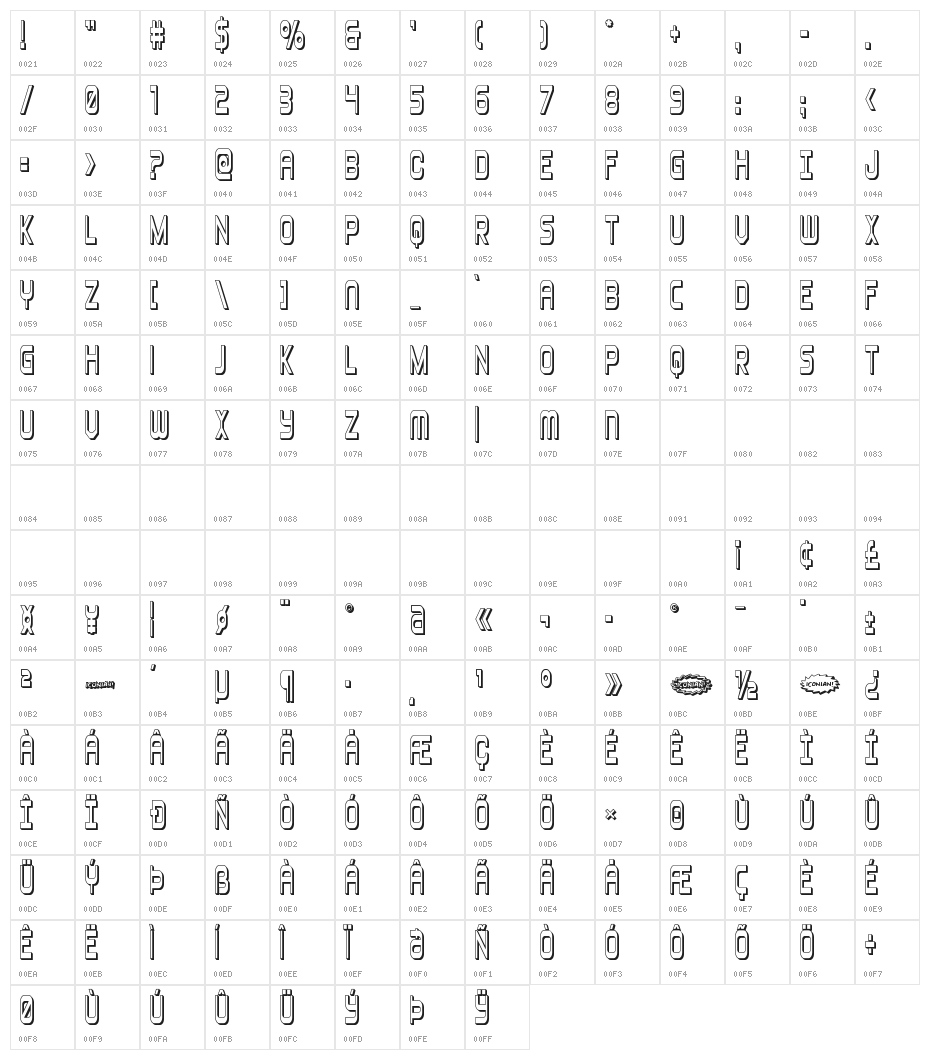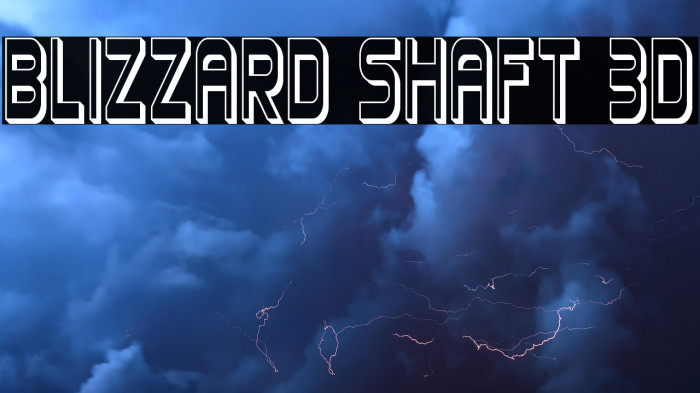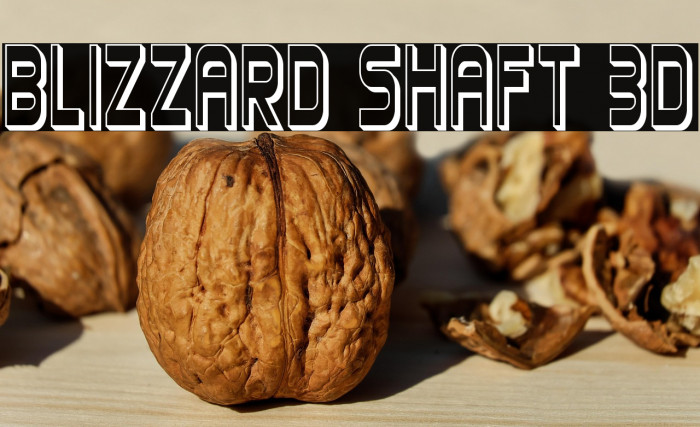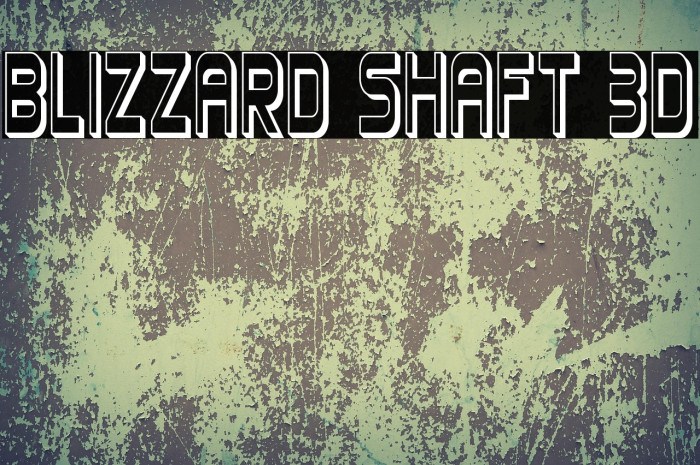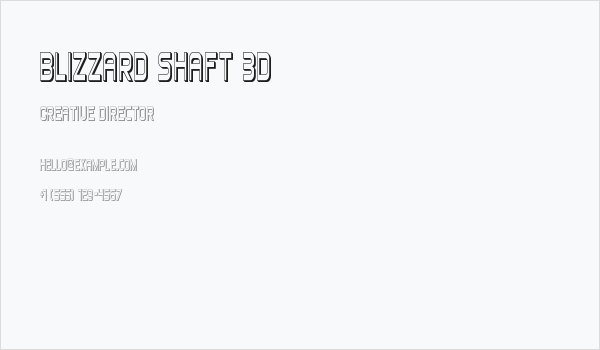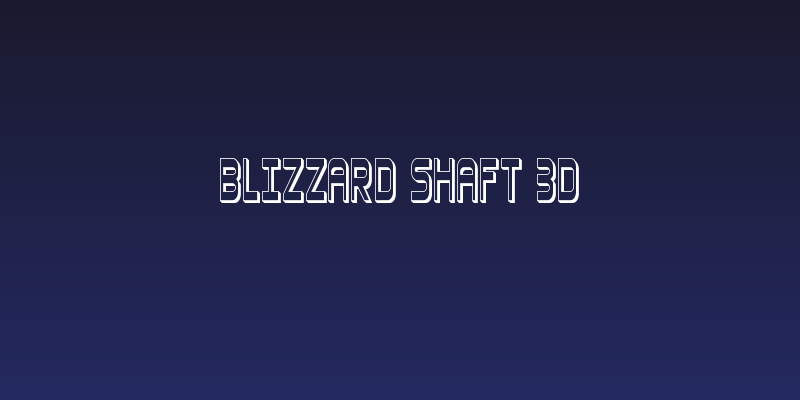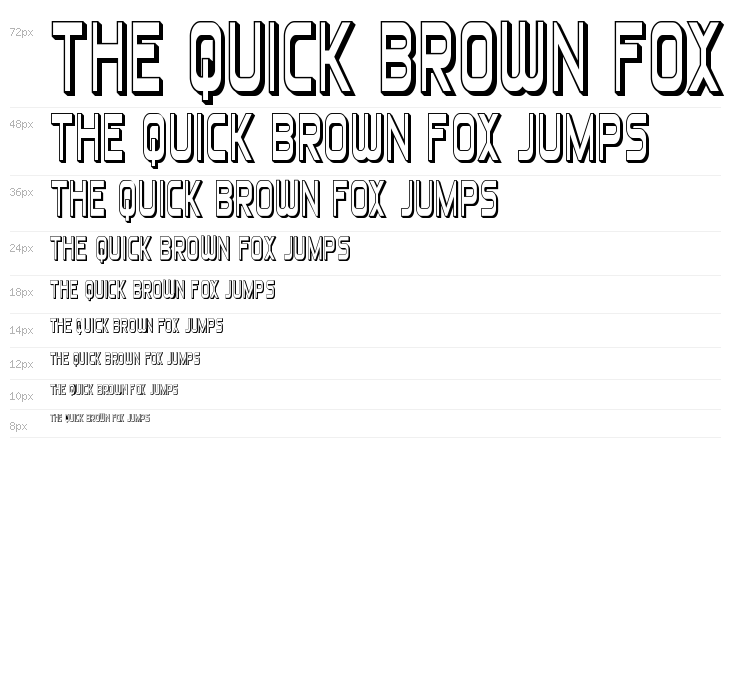
Blizzard Shaft 3D Font
Blizzard Shaft 3D Description
This font features a bold, three-dimensional design with a distinct outline that gives each character a shadowed effect. The uppercase letters are uniformly structured, with a geometric and blocky appearance that emphasizes clarity and impact. The numbers and special characters maintain this cohesive style, ensuring consistency across all elements. The font's design is modern and eye-catching, making it suitable for projects that require a strong visual presence. Its structured form and shadow effect add depth, making it ideal for headlines or titles that need to stand out.